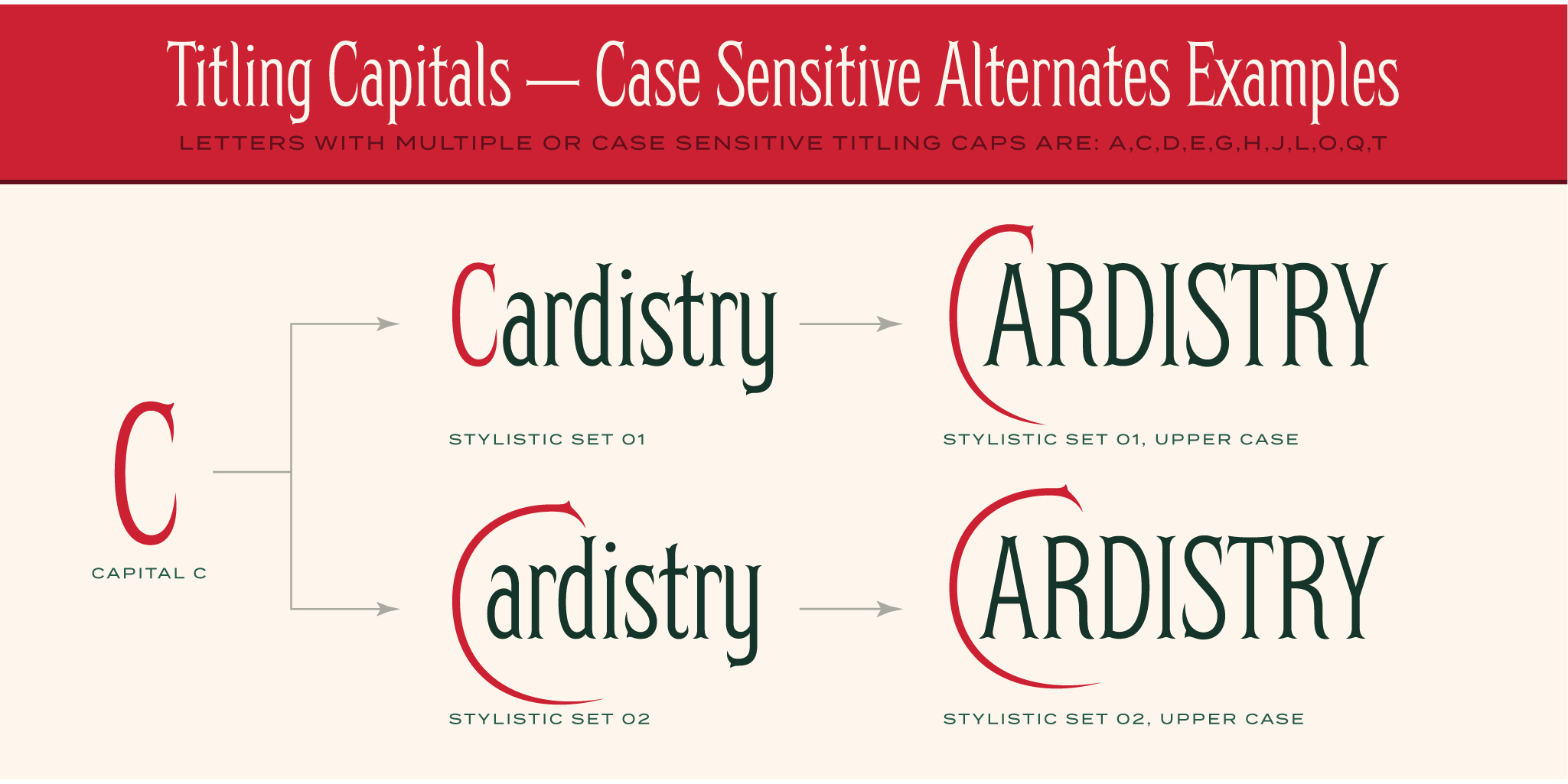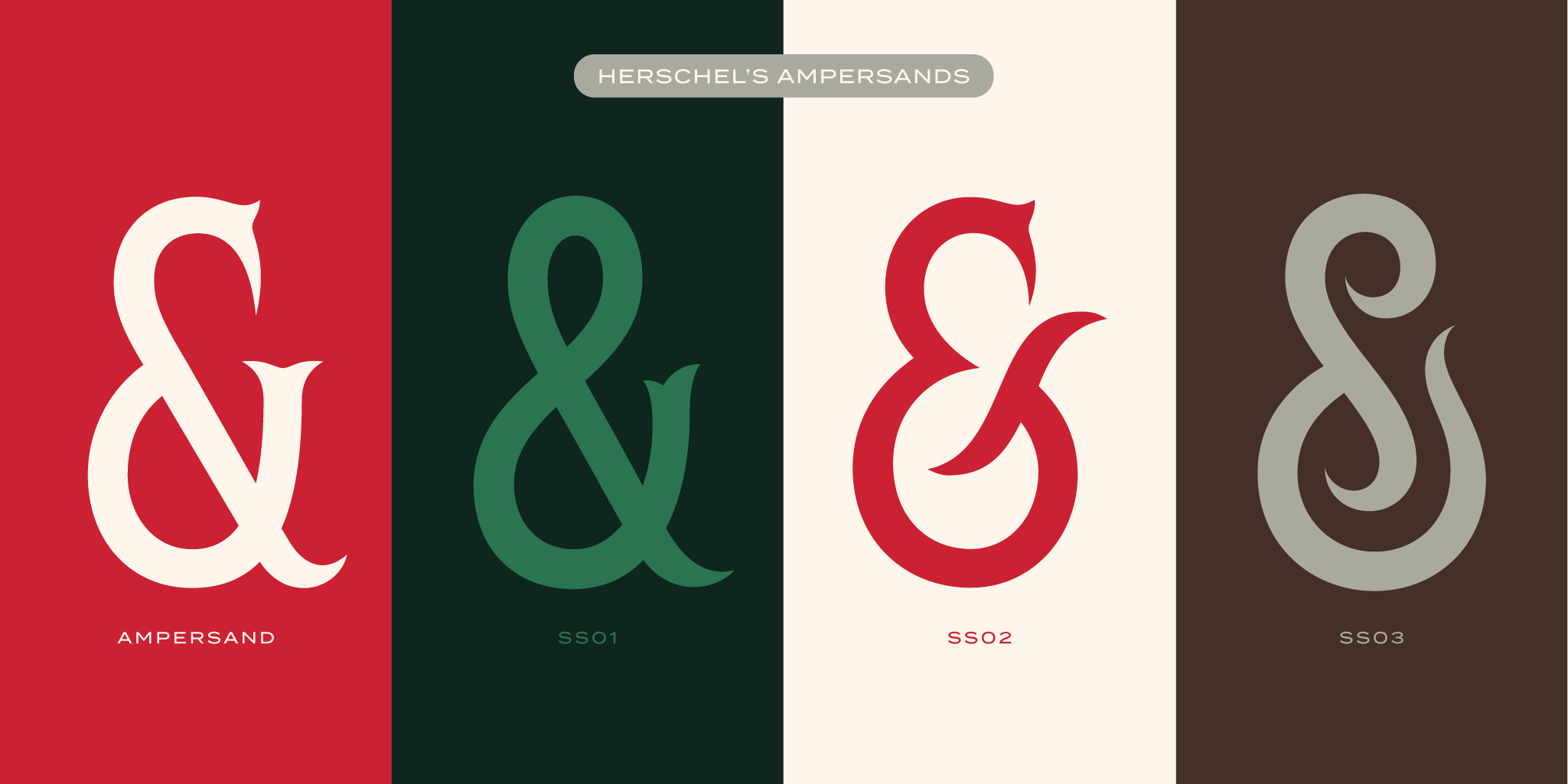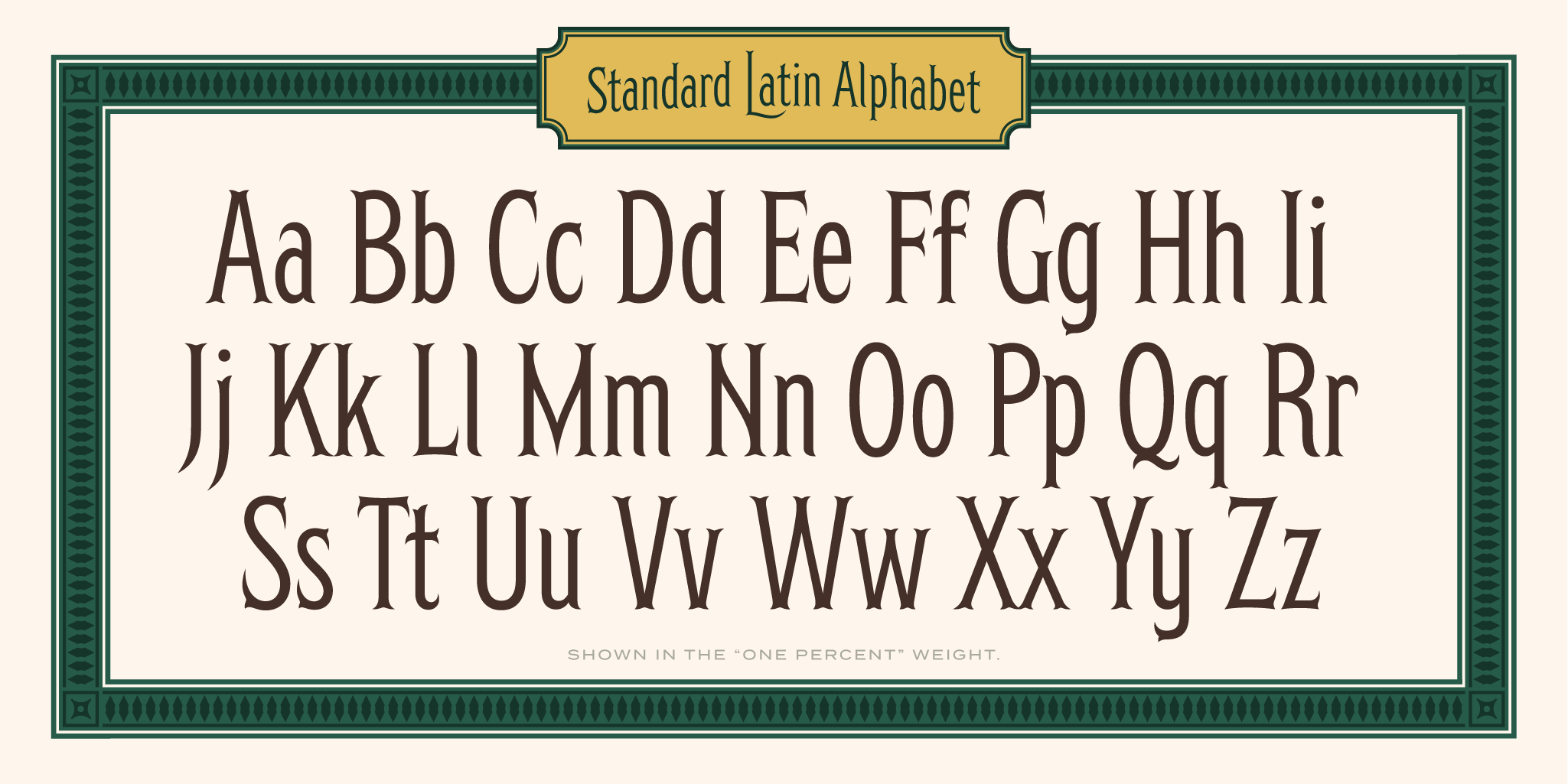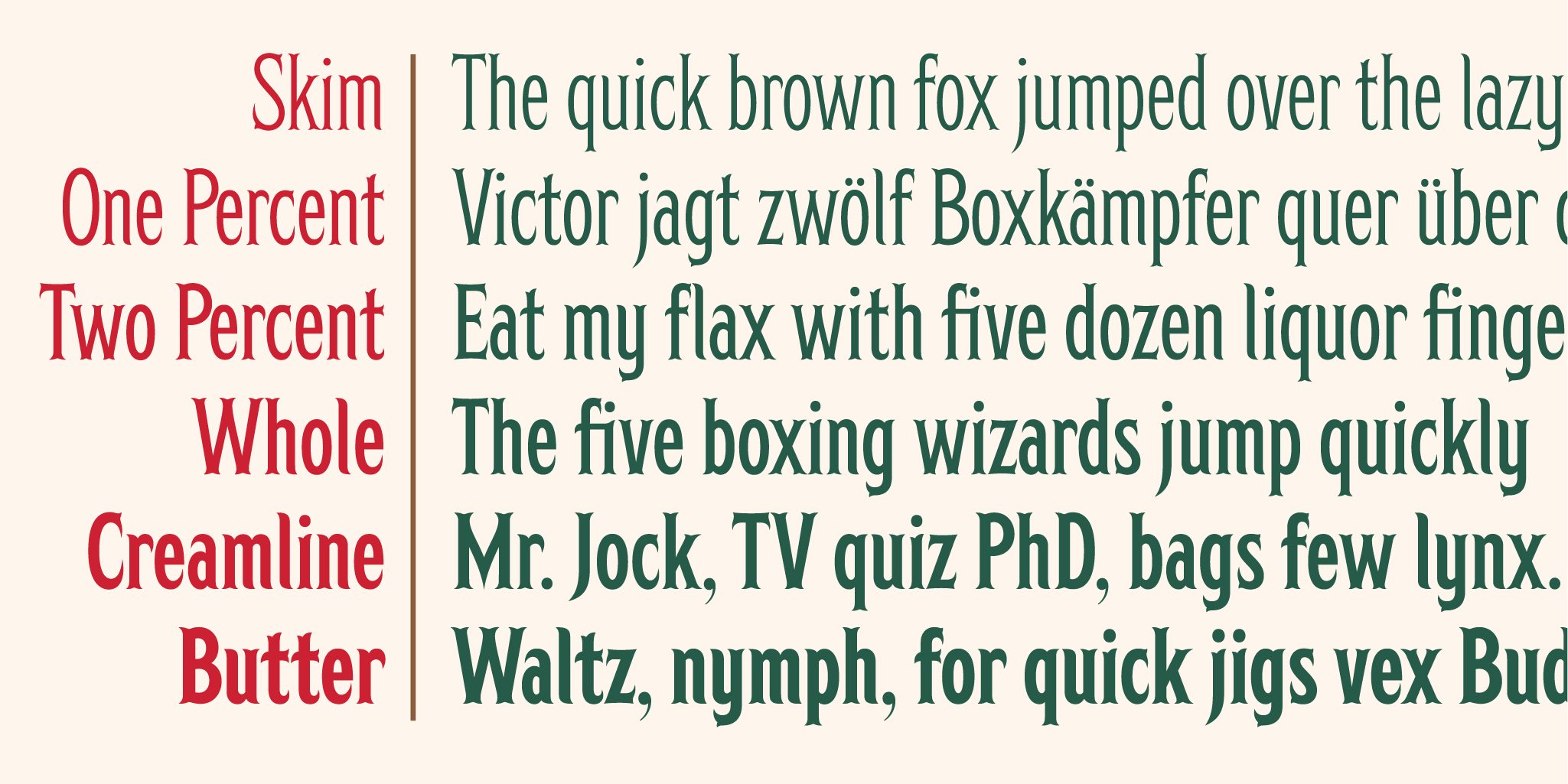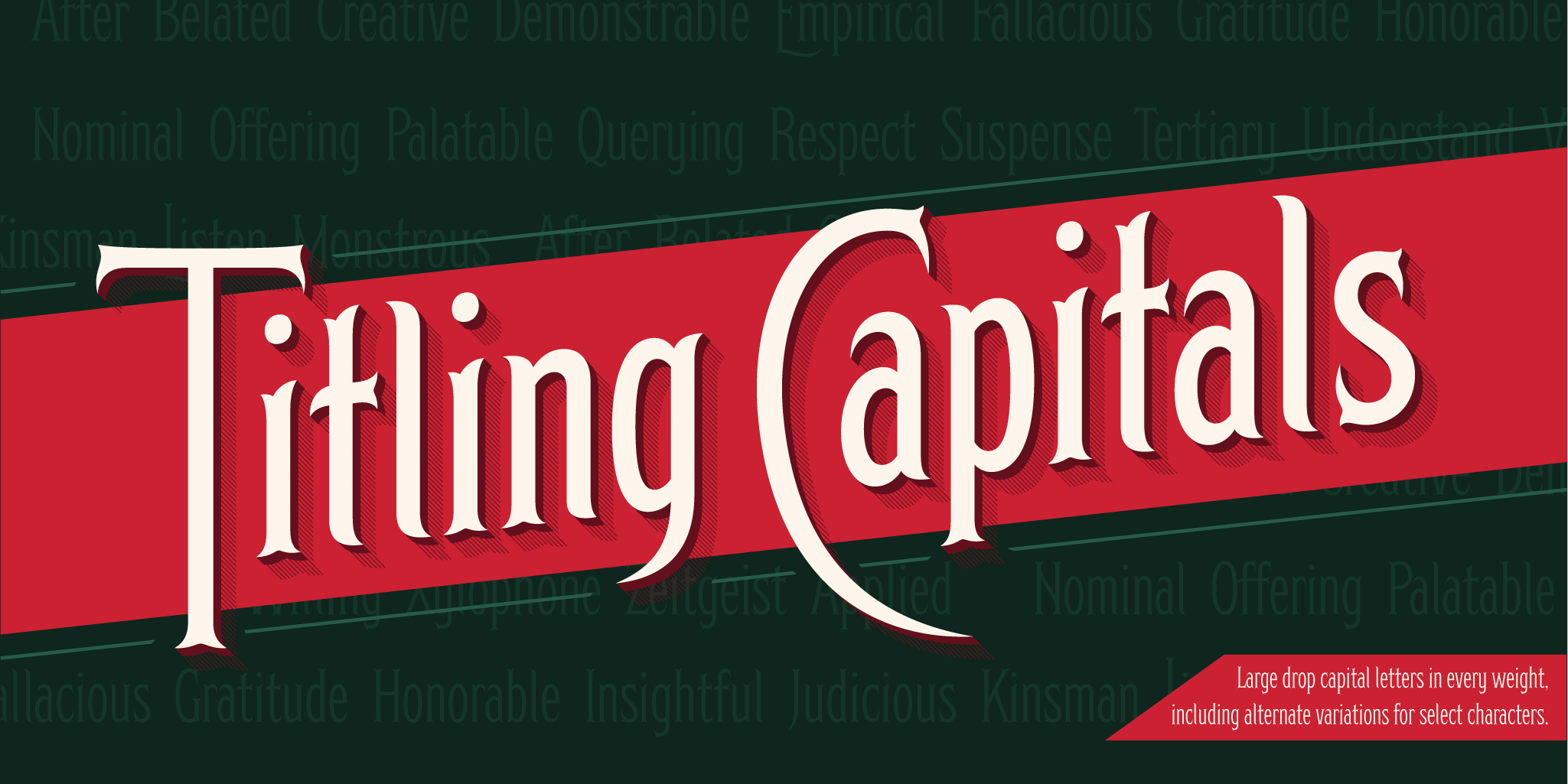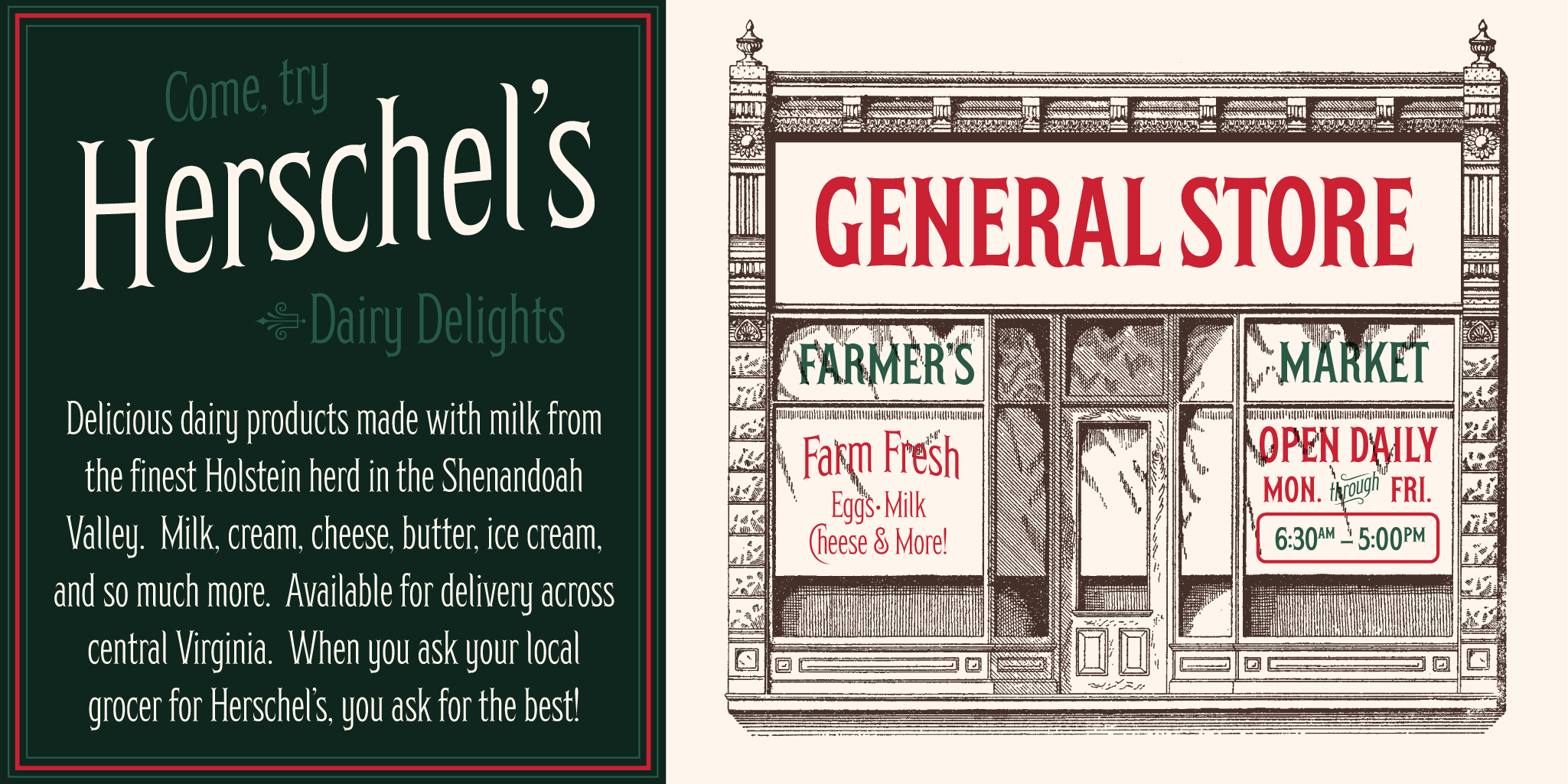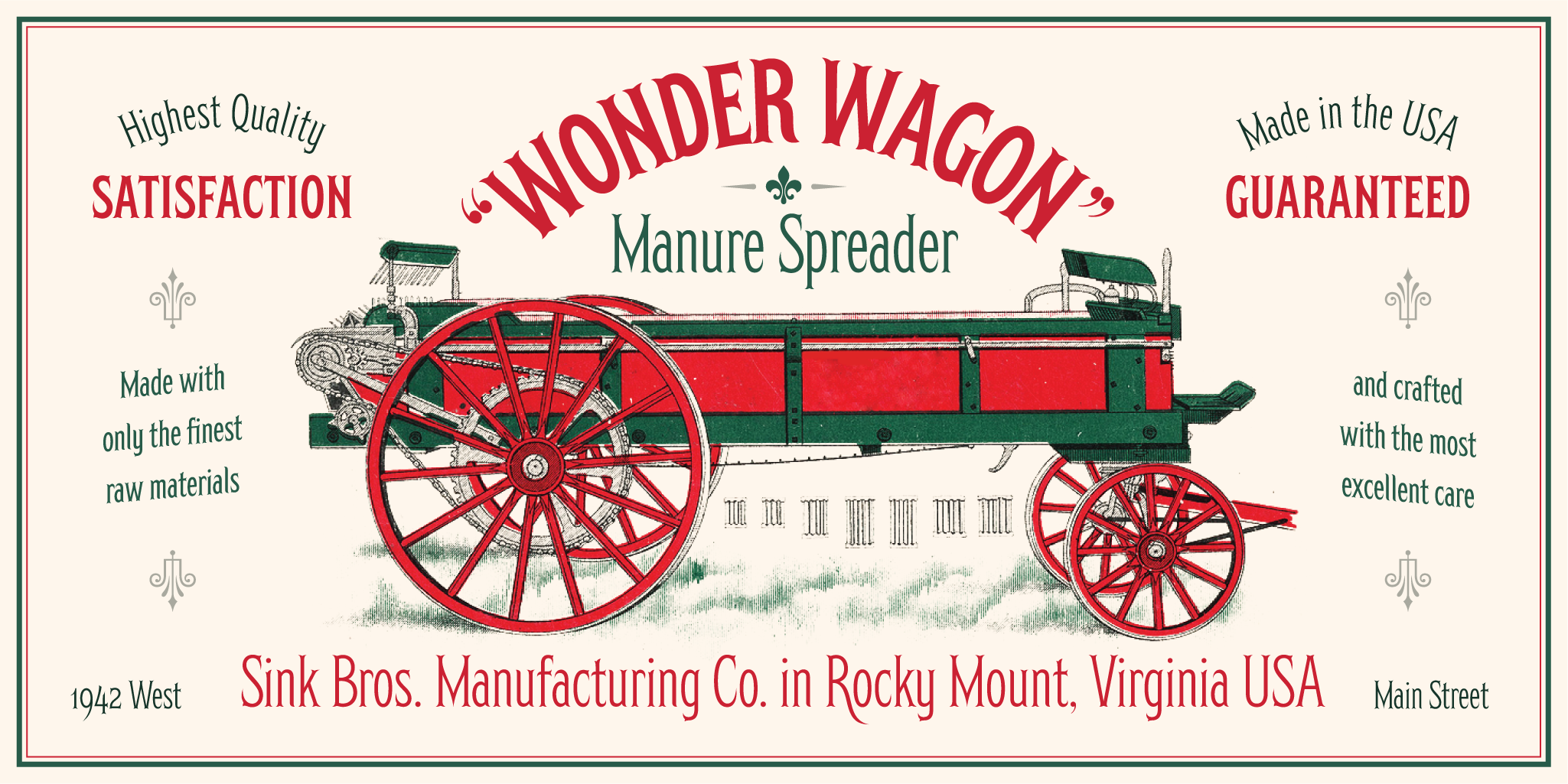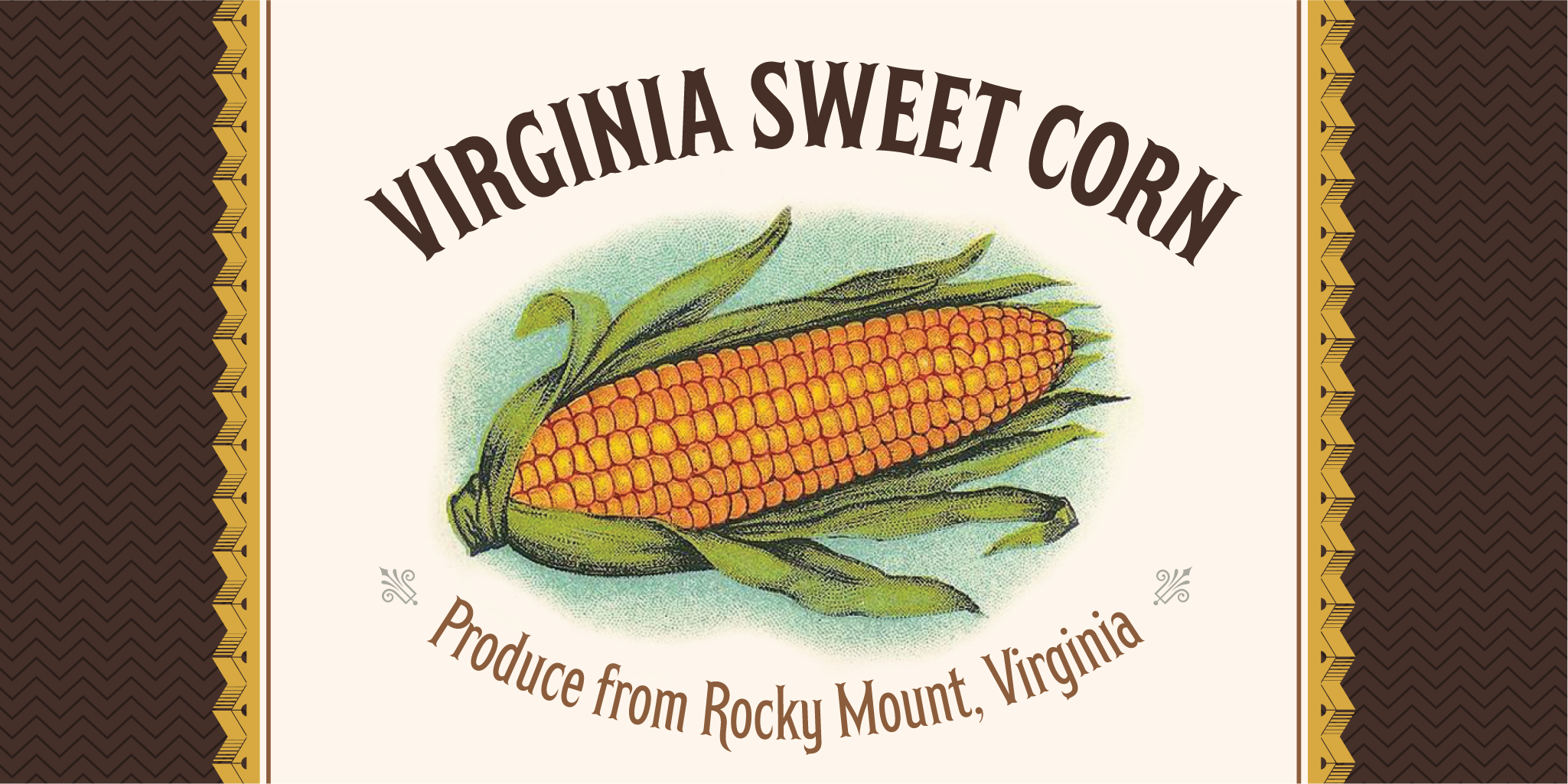
Herschel
Serif
Gilded age charm with bells and whistles to boot.
Herschel ventures into the elaborate world of Gilded Age to bring you bold quirks and eccentric aesthetics. At the core of this family is a passion for late 19th century print ephemera and the desire to push technical limits as a way to learn and explore. As such, it's got all manner of fun surprises, experiments, and features:
- Titling/Drop capitals with multiple and contextual ligatures
- Copious stylistic alternates
- Lining, oldstyle, proportional, and tabular figures
- Standard and discretionary ligatures
- Unique dingbats and special characters
- Comprehensive language support, including Vietnamese
- And more!
Named after Brian's grandfather, a retired dairy farmer of more than 60 years, Herschel is available in 6 delectable weights: Skim, One Percent, Two Percent, Whole, Creamline, and Butter.